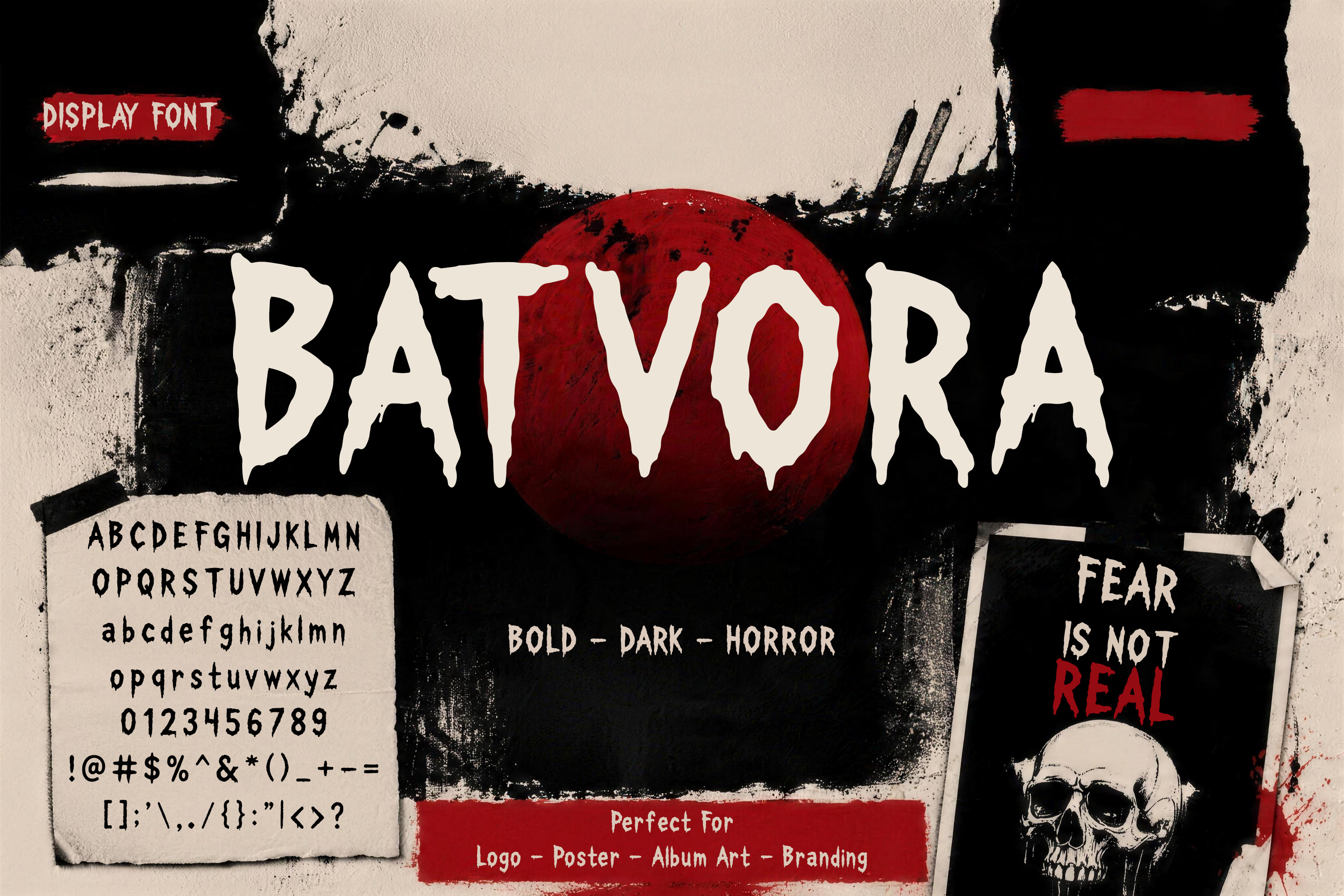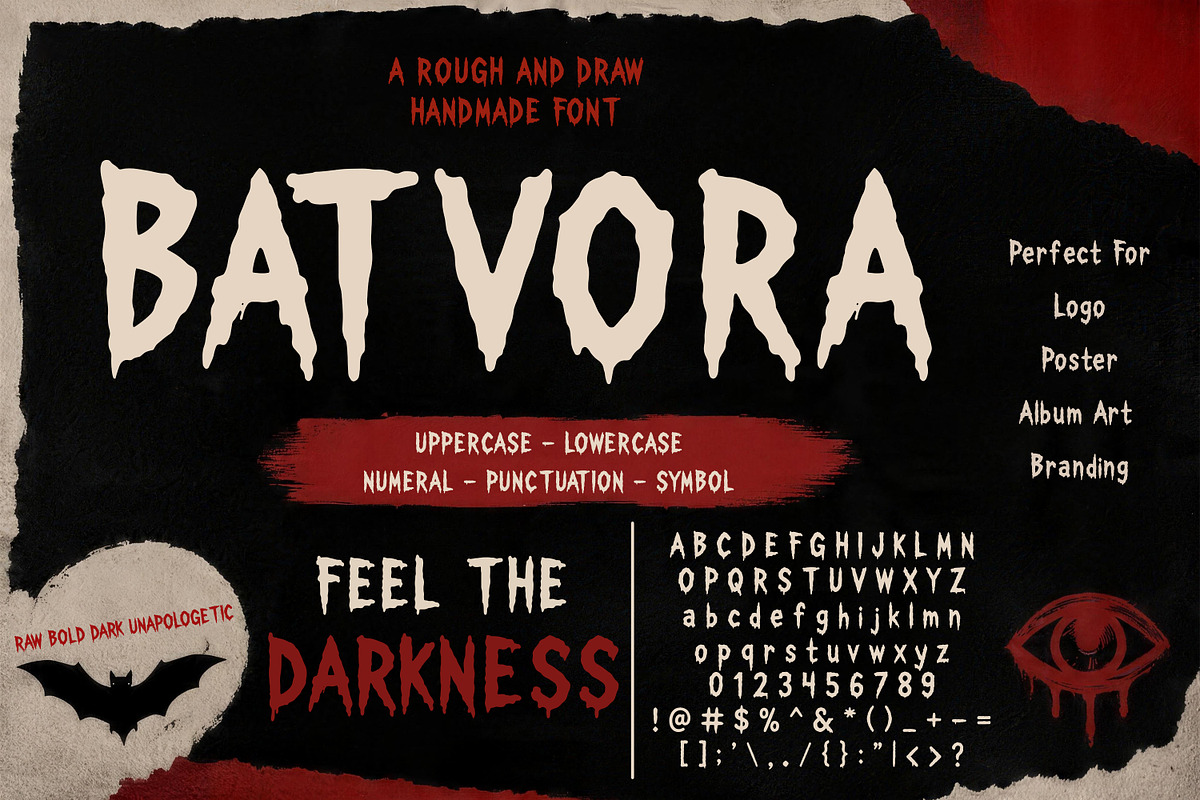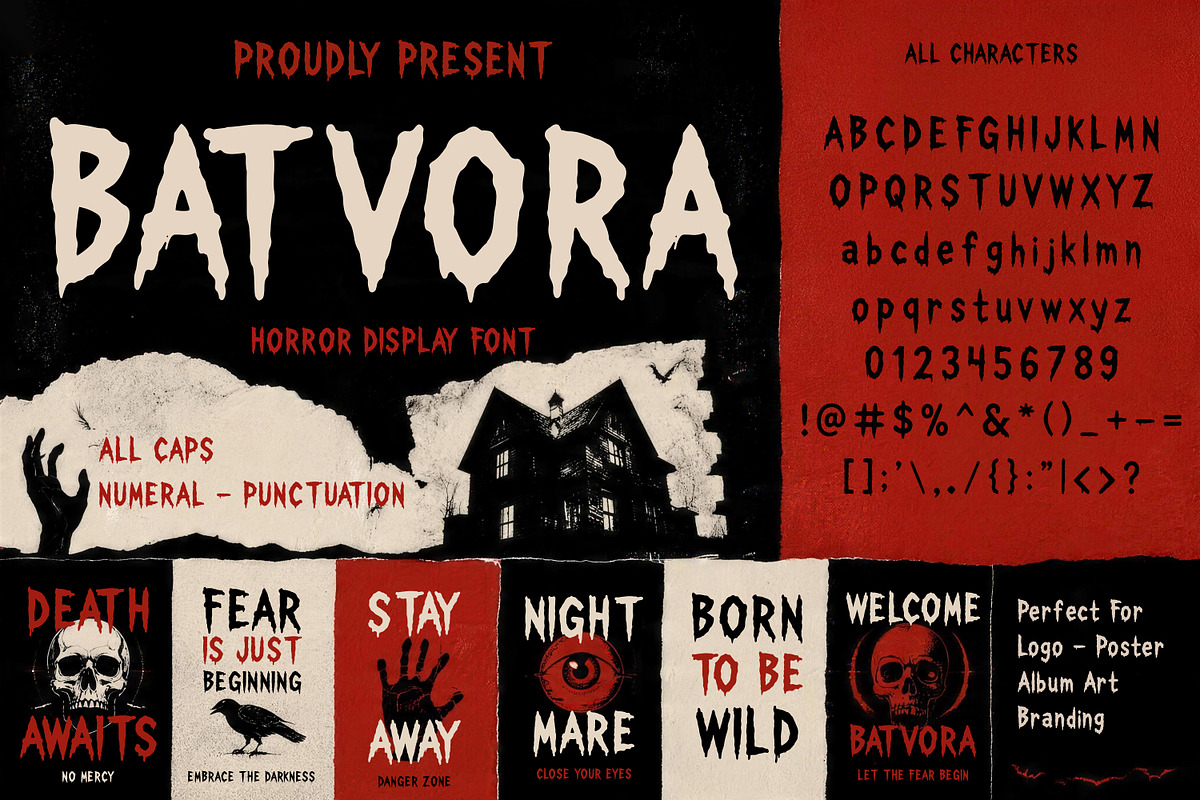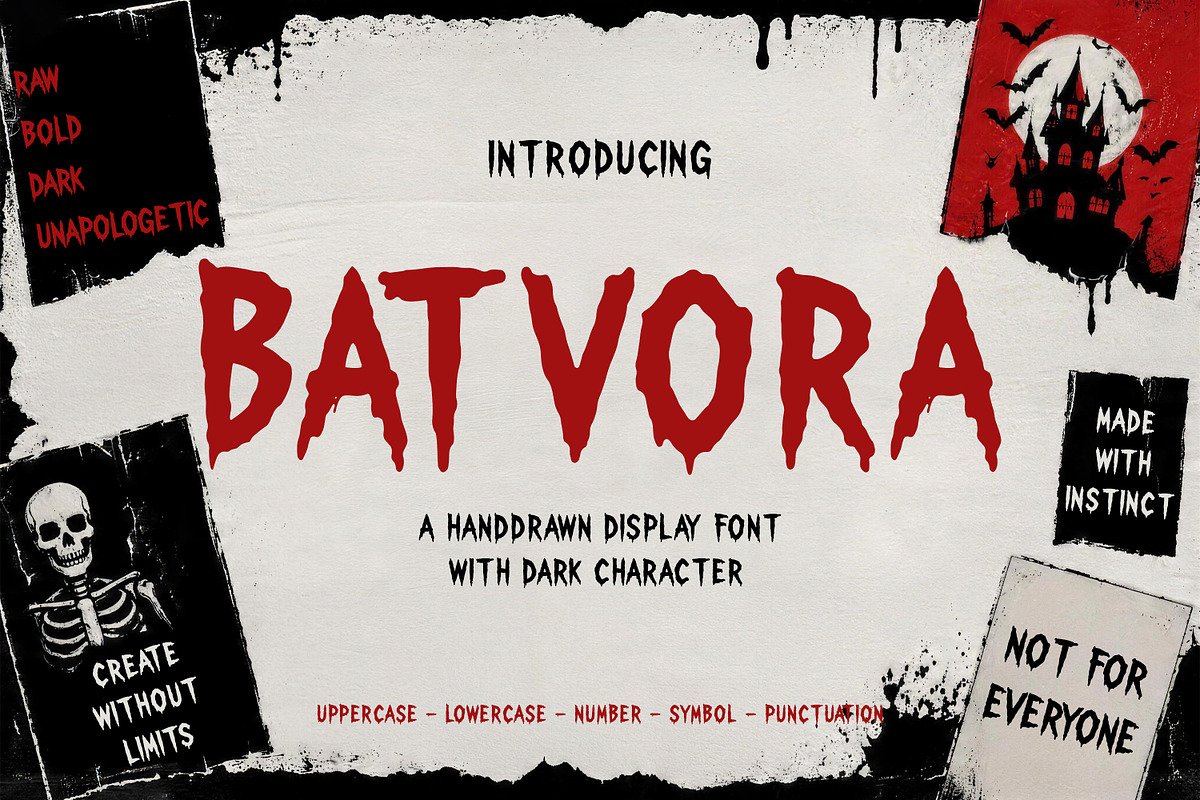
Batvora - Horror Display Font
Batyora is a bold display font with a dark, rough, and horror-inspired personality. Featuring hand-drawn irregular shapes, sharp edges, and an intense distressed character, Batyora brings a mysterious and rebellious atmosphere to any design. Its unique style is perfect for creating dramatic headlines, horror themes, album artwork, posters, branding, and creative projects that need a strong visual impact.
Horror and dark themed designs
Movie posters and cover artwork
Album covers and music branding
Logos and alternative brand identities
Halloween and underground creative projects
Batyora is a powerful display typeface designed to add a bold, eerie, and unforgettable character to your creative work.